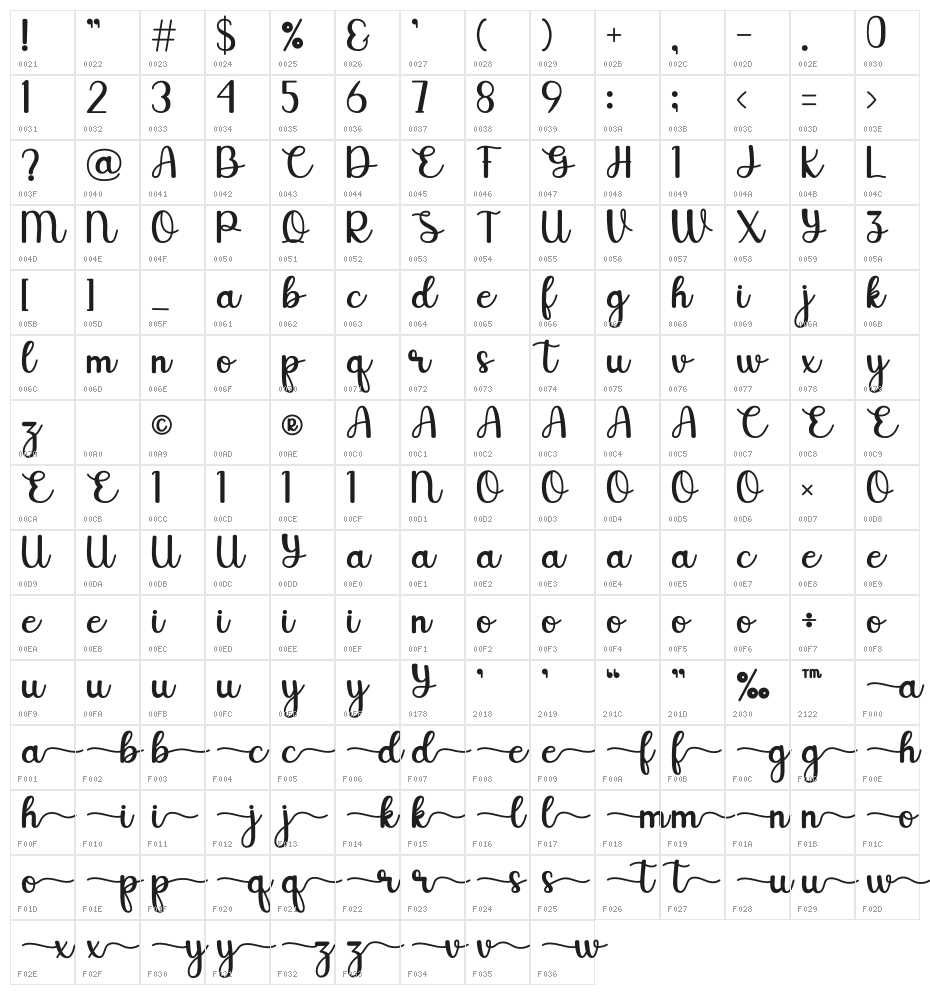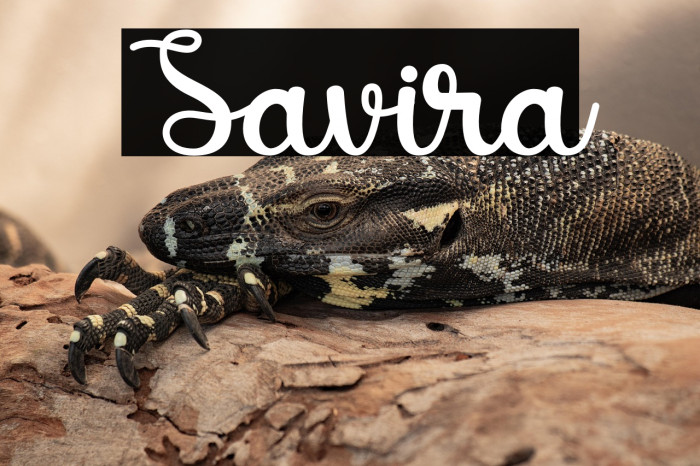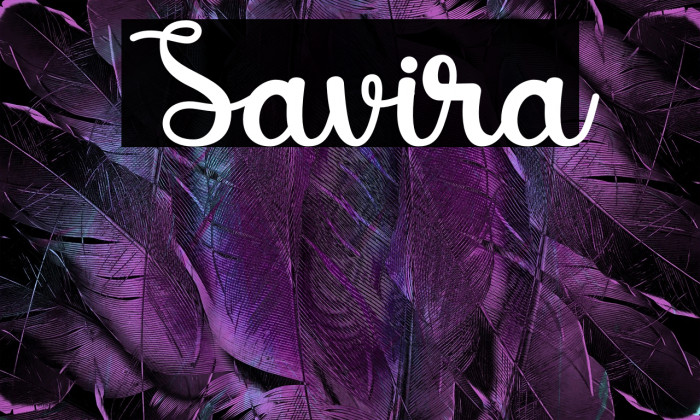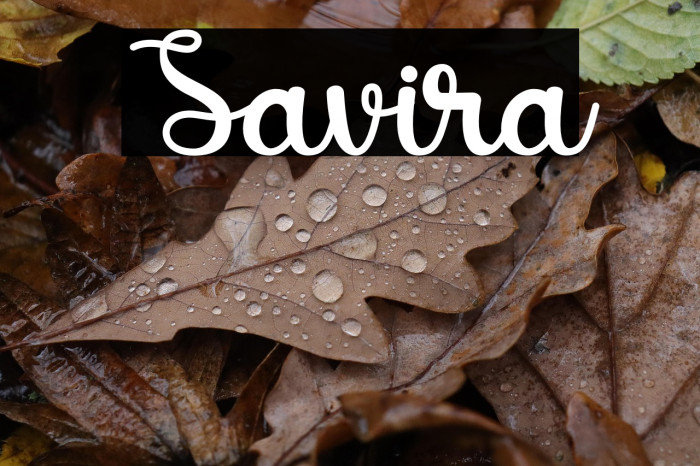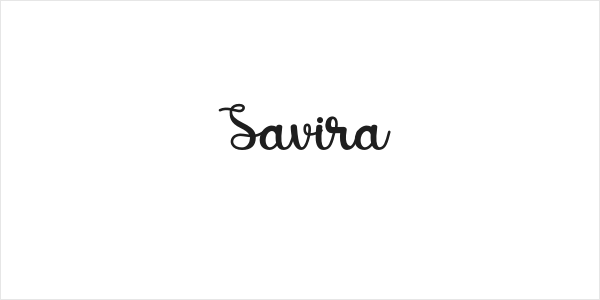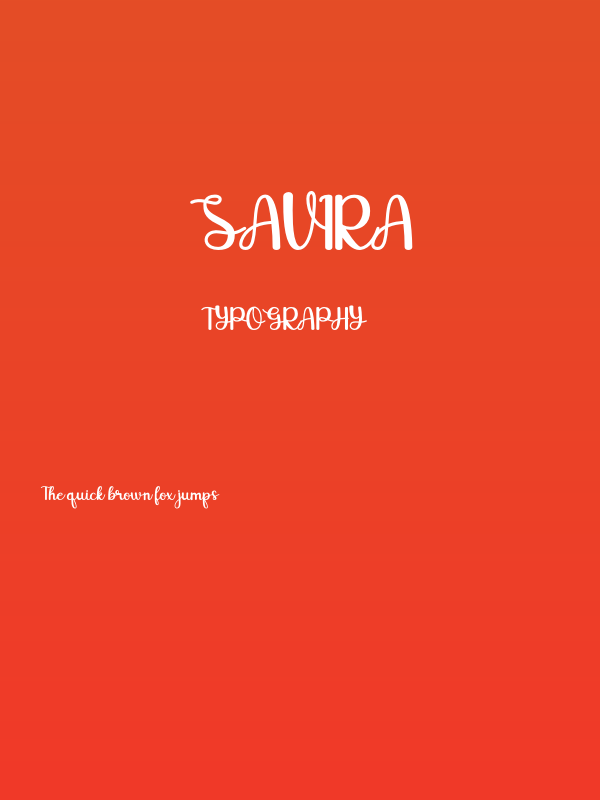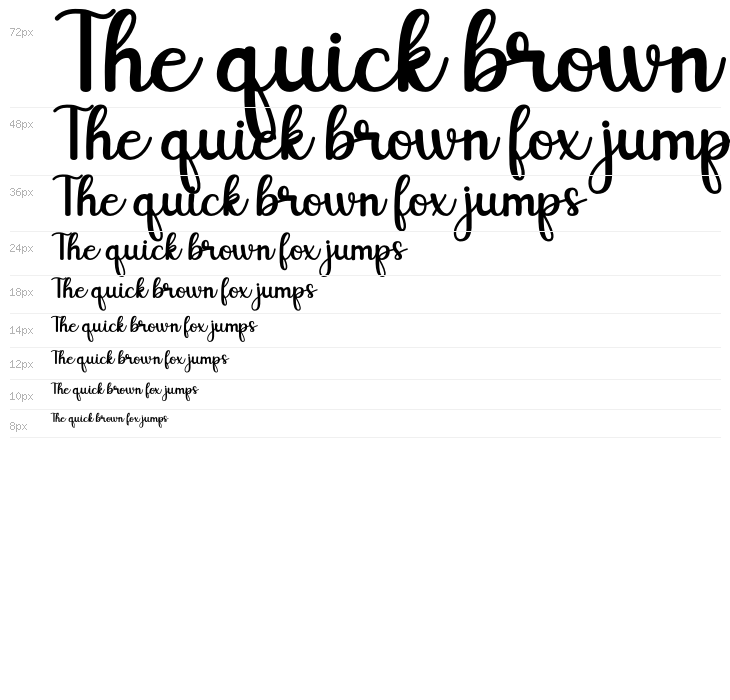
Savira Font
Savira Description
This font features a playful and elegant script style with a handwritten appearance. The uppercase letters are bold and flowing, with distinctive loops and curves that add a sense of movement and grace. The lowercase letters maintain a cohesive style, with smooth connections between characters, enhancing its cursive nature. The numerals are clear and legible, complementing the overall aesthetic. Special characters are creatively designed, maintaining the font's whimsical and artistic flair. This font is perfect for projects that require a personal touch, such as invitations, greeting cards, and branding materials.
| Proposed Projects | Ideal for invitations, greeting cards, branding, and personal projects. |